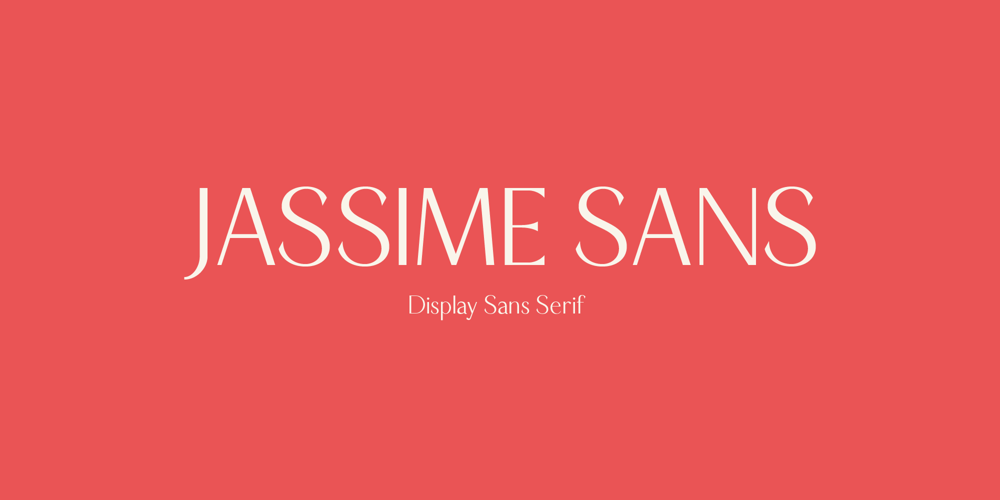
Jassime Sans
Jassime Sans font
Jassime Sans Font Family was designed by Mugi Raharjo and published by Nian Keun Studio. Jassime Sans contains 1 styles and family package options. Jassime Sans is a refined display serif font that represents the evolution of classic elegance from its predecessor, Jassime. While maintaining the essence of sophistication and charm found in the original Jassime font, Jassime Sans introduces a contemporary twist with its serif style. This font seamlessly blends the timeless appeal of serif typography with the modernity of a sans-serif design.The result is a font that strikes the perfect balance between tradition and innovation, offering versatility and elegance for a variety of design applications. With its clean lines and balanced proportions, Jassime Sans exudes a sense of refinement and class. Each character is meticulously crafted to ensure readability and visual harmony, making it suitable for branding, editorial design, advertising, and more. Experience the evolution of classic elegance with Jassime Sans.Whether used in print or digital media, this font adds a touch of sophistication and style to any project, continuing the legacy of its predecessor while paving the way for a new era of typographic excellence.Thank you for coming to my shop and enjoying other fonts.